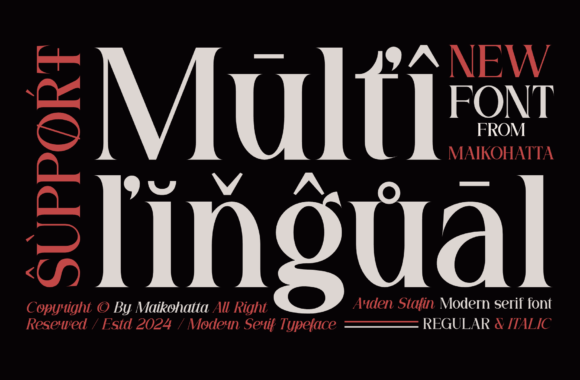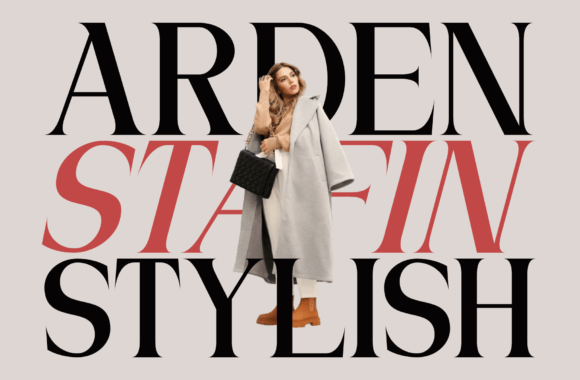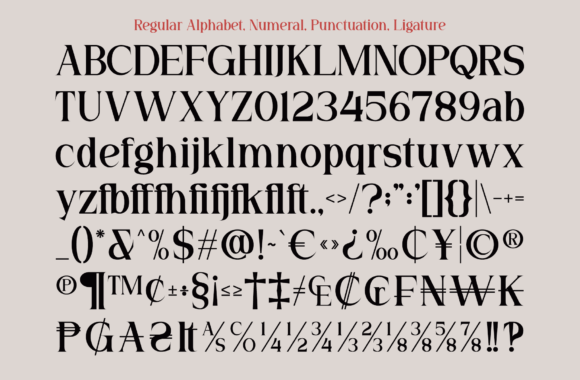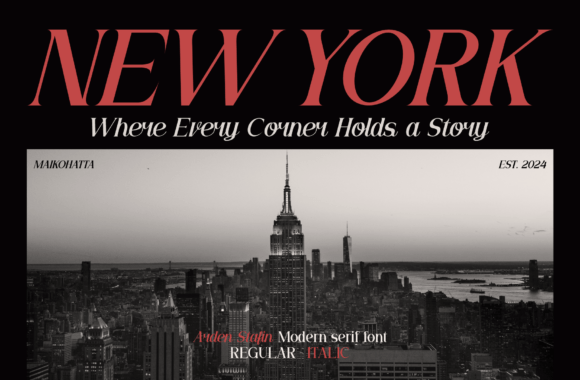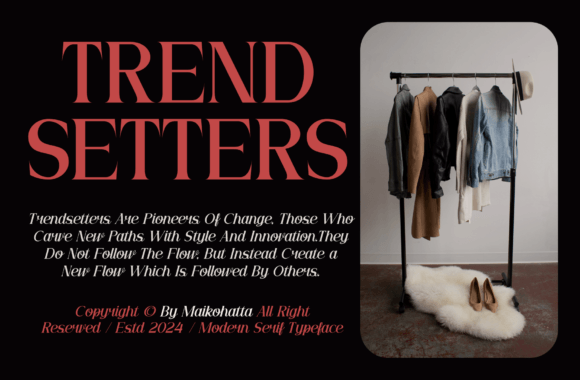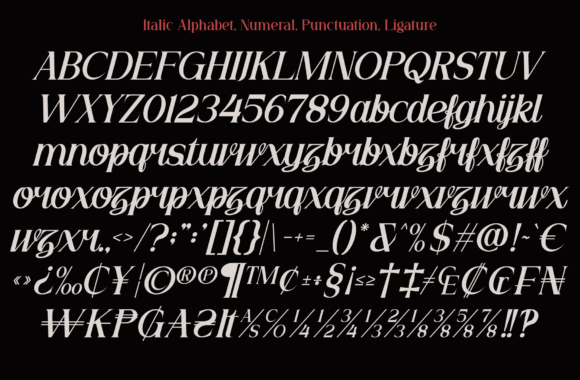
Introducing Arden Stafin Font: Elevate Your Designs with Bold and Assertive Typography
In the world of typography, a well-crafted font can make all the difference in elevating your designs to the next level. Arden Stafin Font is a bold and assertive serif font that features a balanced proportion of stroke thickness and fineness, creating attractive and easy-to-read visuals. Whether you’re a designer, crafter, or simply a typography enthusiast, Arden Stafin is an incredible asset to your font library, capable of enhancing any creation.
The Unique Characteristics of Arden Stafin Font
Arden Stafin Font boasts a distinctive character that sets it apart from other serif fonts. Its bold and assertive nature makes it perfect for headlines, titles, and any other design element where you want to grab attention. The font’s balanced proportion of stroke thickness and fineness ensures that it remains easy to read, even at smaller sizes. This makes Arden Stafin an excellent choice for body text, captions, and other applications where legibility is crucial.
Key Features of Arden Stafin Font
- Balanced stroke thickness and fineness: Creating attractive and easy-to-read visuals, Arden Stafin Font strikes the perfect balance between boldness and elegance.
- Bold and assertive: Make a statement with Arden Stafin’s confident and attention-grabbing presence.
- Serif design: Classic and timeless, the serif design of Arden Stafin adds a touch of sophistication to any design.
- Easy to read: Even at smaller sizes, Arden Stafin remains clear and legible, making it perfect for a wide range of applications.
Why Choose Arden Stafin Font?
With so many fonts available, why choose Arden Stafin? Here are just a few reasons why this font stands out:
- Versatility: Arden Stafin is suitable for a wide range of design projects, from branding and advertising to packaging and digital media.
- Uniqueness: With its distinctive character, Arden Stafin helps you stand out from the crowd and establish a strong visual identity.
- Legibility: The font’s balanced design ensures that it remains easy to read, even in smaller sizes or at a distance.
Using Arden Stafin Font in Your Designs
Arden Stafin Font is incredibly easy to use and can be incorporated into your designs in a variety of ways:
- Headlines and titles: Use Arden Stafin to create bold and attention-grabbing headlines that draw the reader in.
- Body text: The font’s legibility makes it perfect for body text, ensuring that your readers can easily follow your message.
- Branding and logos: Arden Stafin can be used to create a strong and memorable brand identity.
Tips and Tricks for Getting the Most Out of Arden Stafin Font
Here are a few tips and tricks to help you get the most out of Arden Stafin Font:
- Experiment with font sizes: Arden Stafin looks great at a wide range of font sizes, so don’t be afraid to experiment and find the perfect size for your design.
- Pair with other fonts: Try pairing Arden Stafin with other fonts to create a unique and visually appealing combination.
- Use it consistently: To establish a strong brand identity, use Arden Stafin consistently across all your design materials.
In conclusion, Arden Stafin Font is a bold and assertive serif font that offers a unique combination of style, legibility, and versatility. Whether you’re a designer, crafter, or simply a typography enthusiast, Arden Stafin is an excellent addition to your font library. With its balanced proportion of stroke thickness and fineness, this font is sure to elevate any creation and help you establish a strong visual identity.